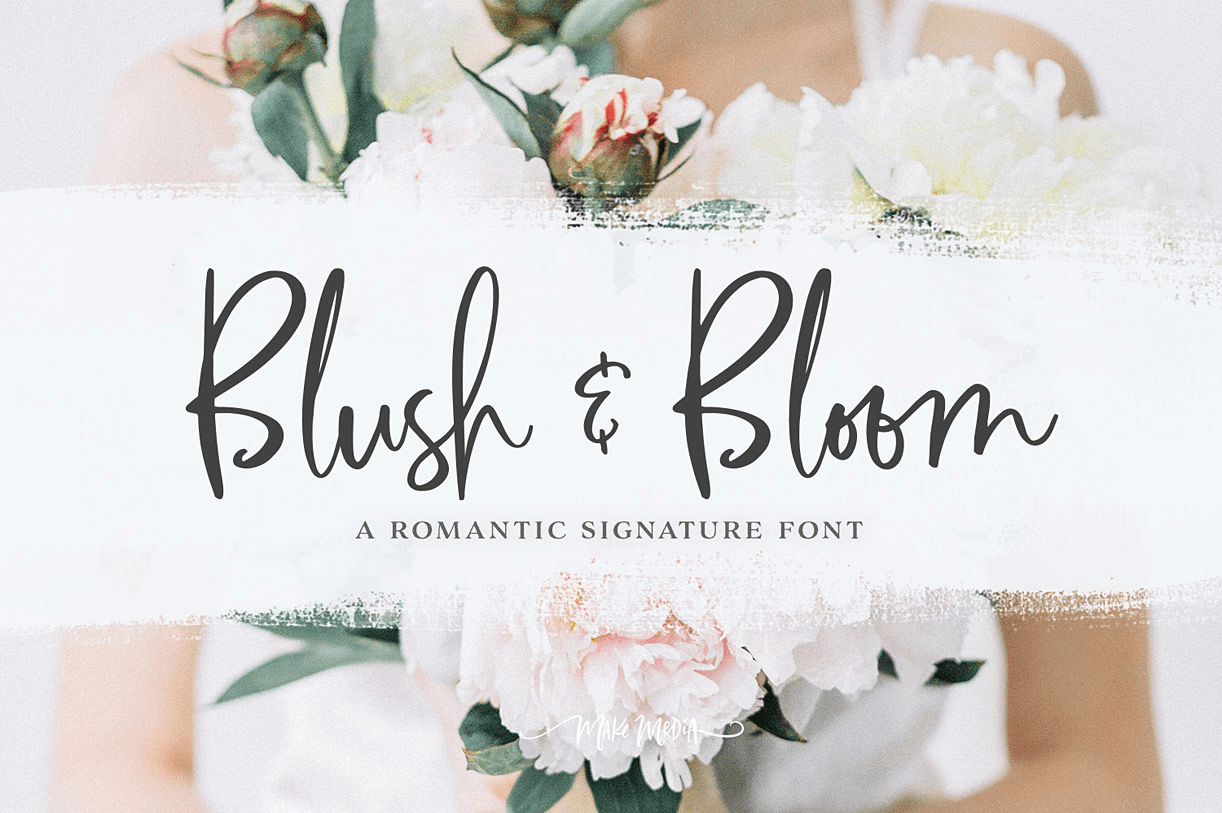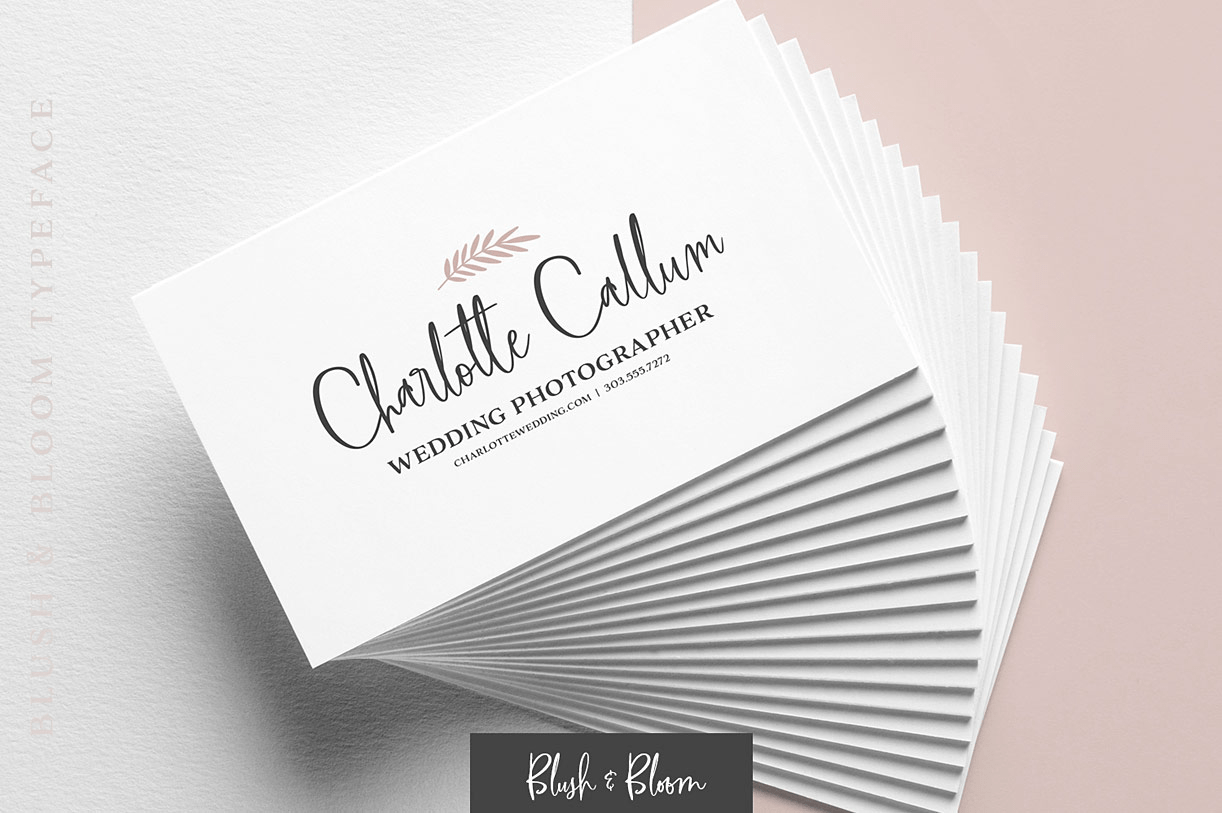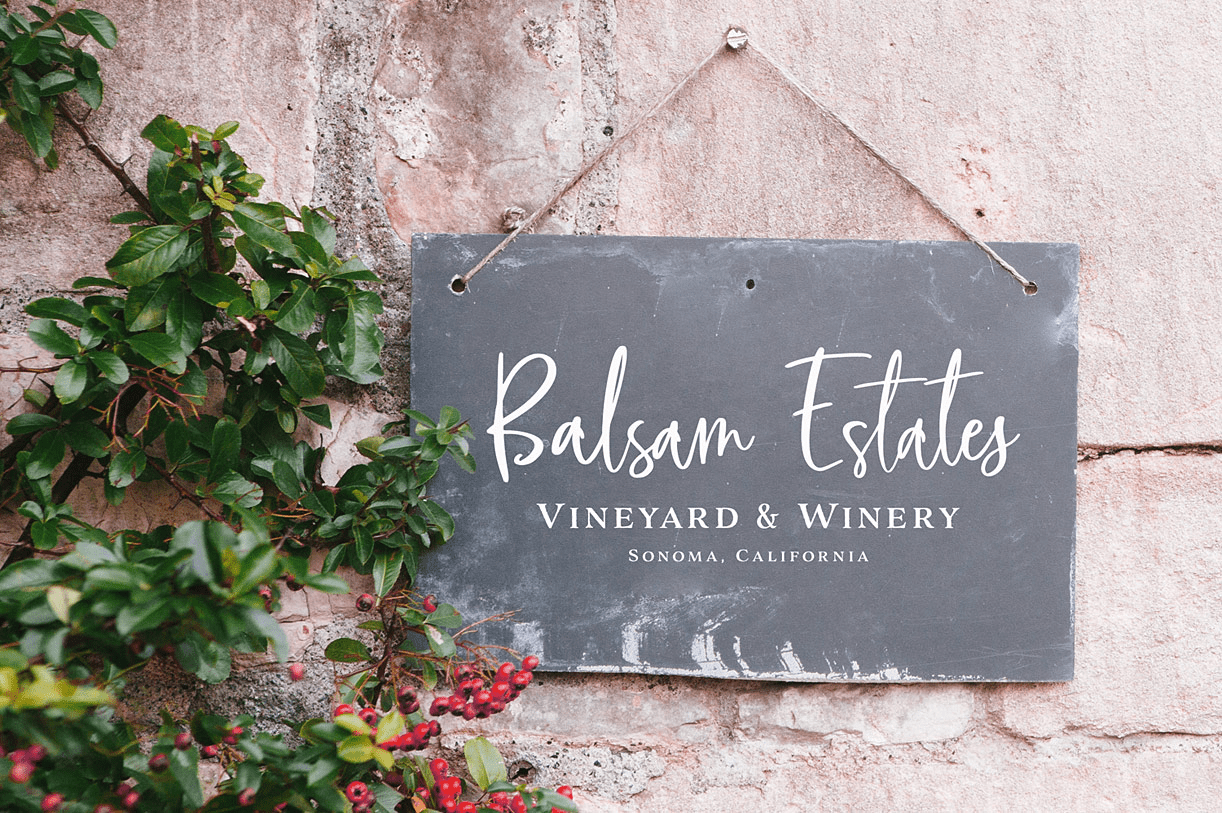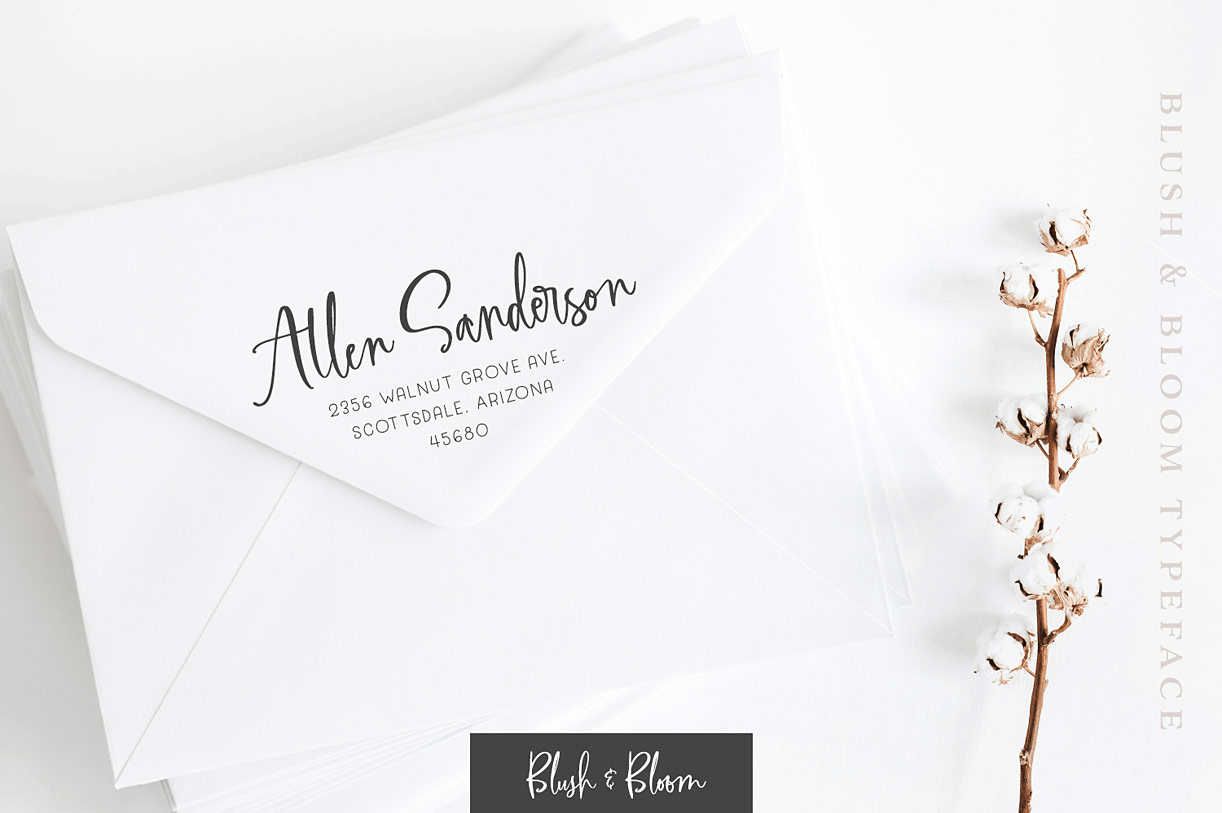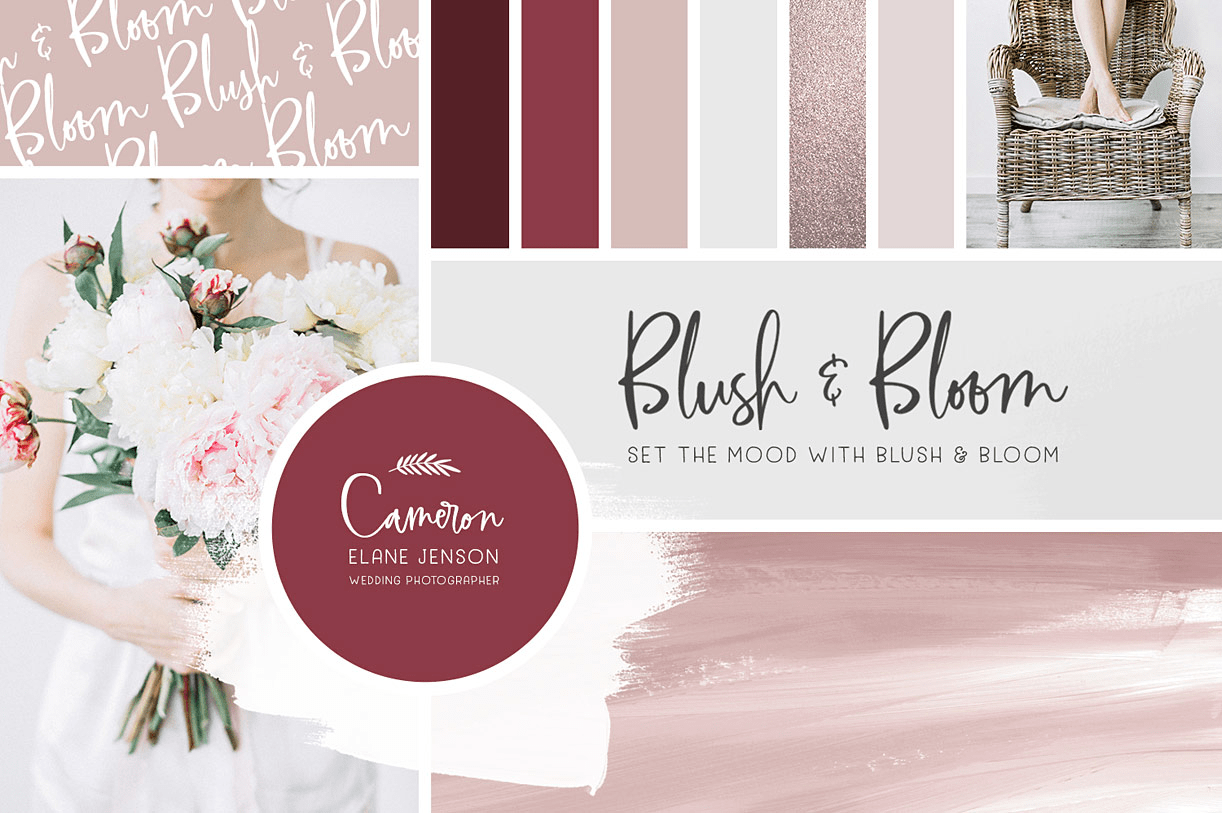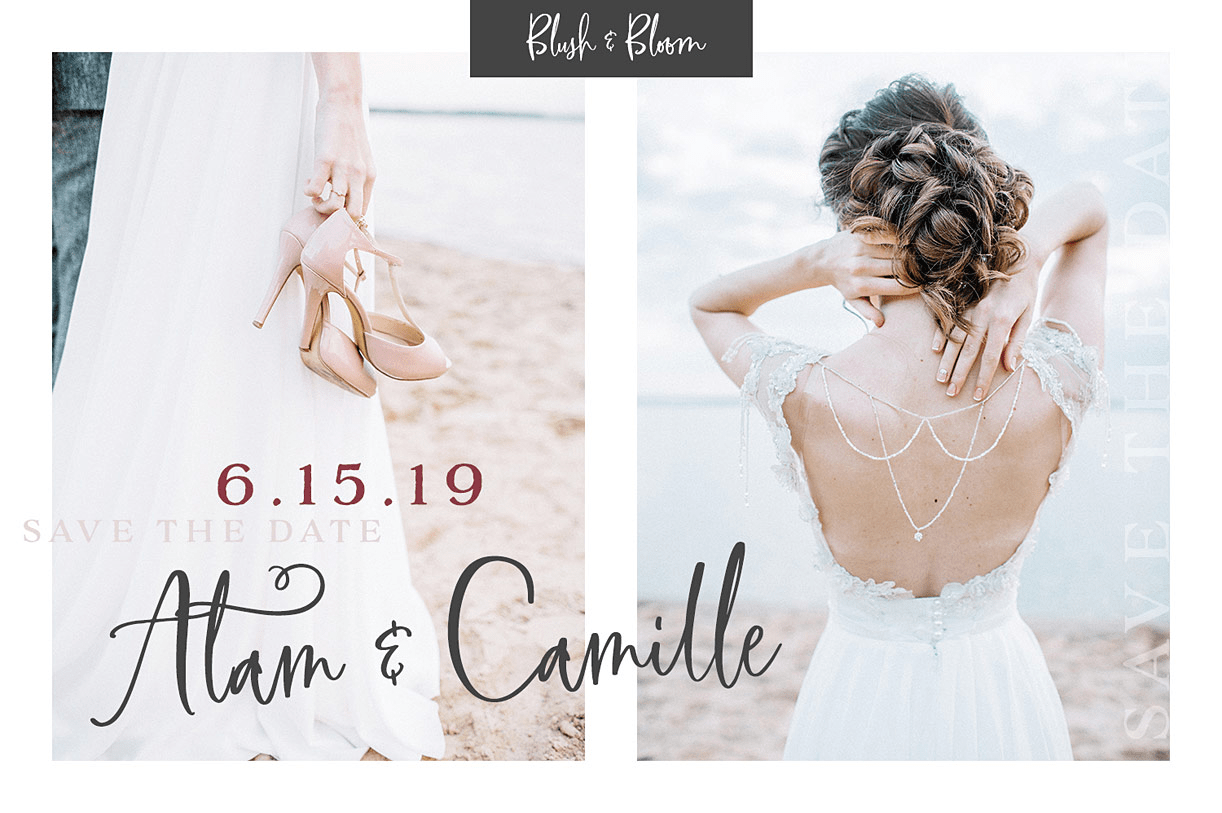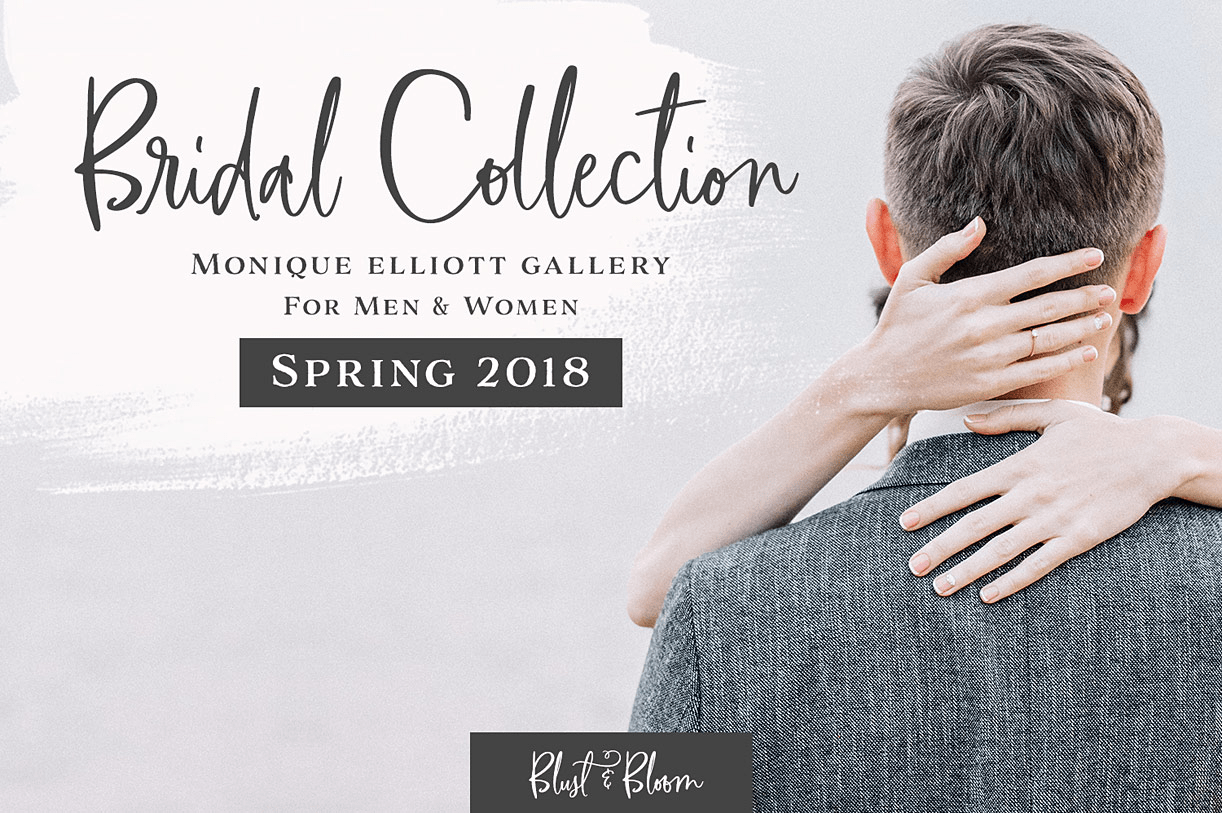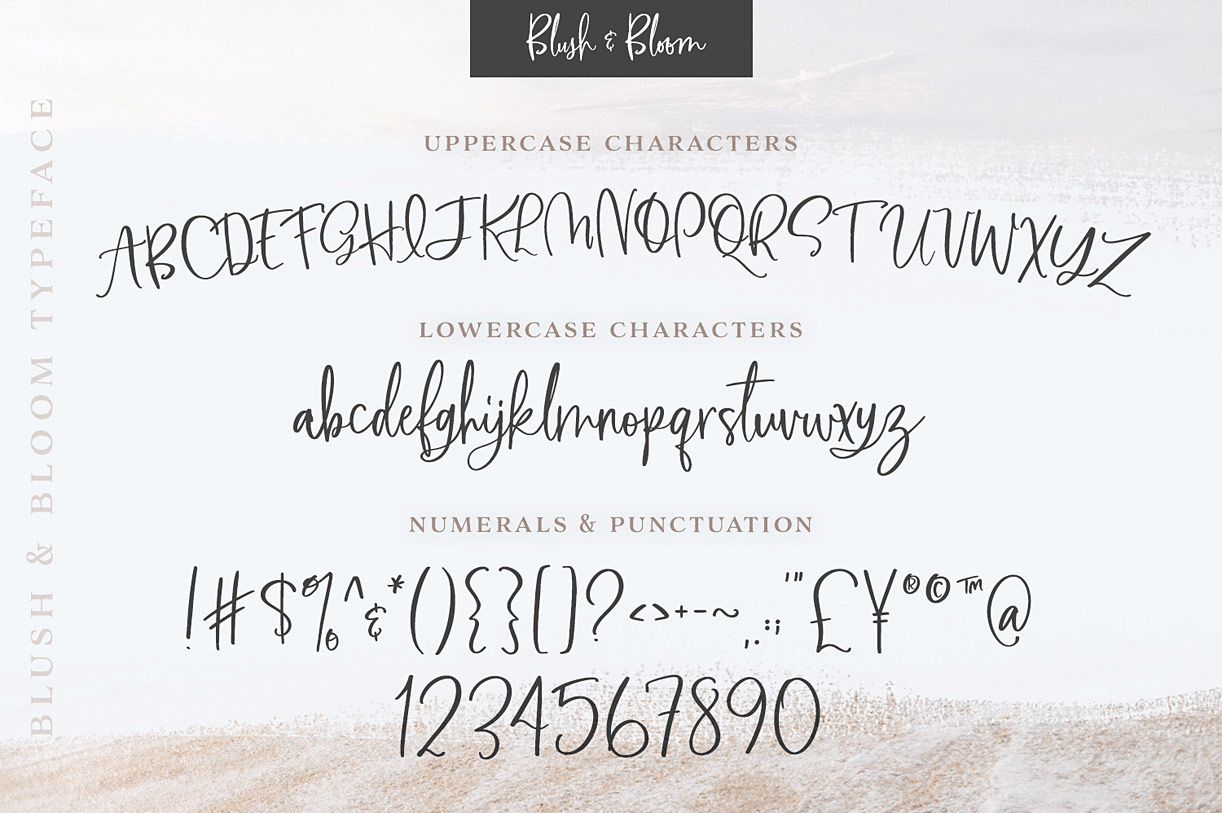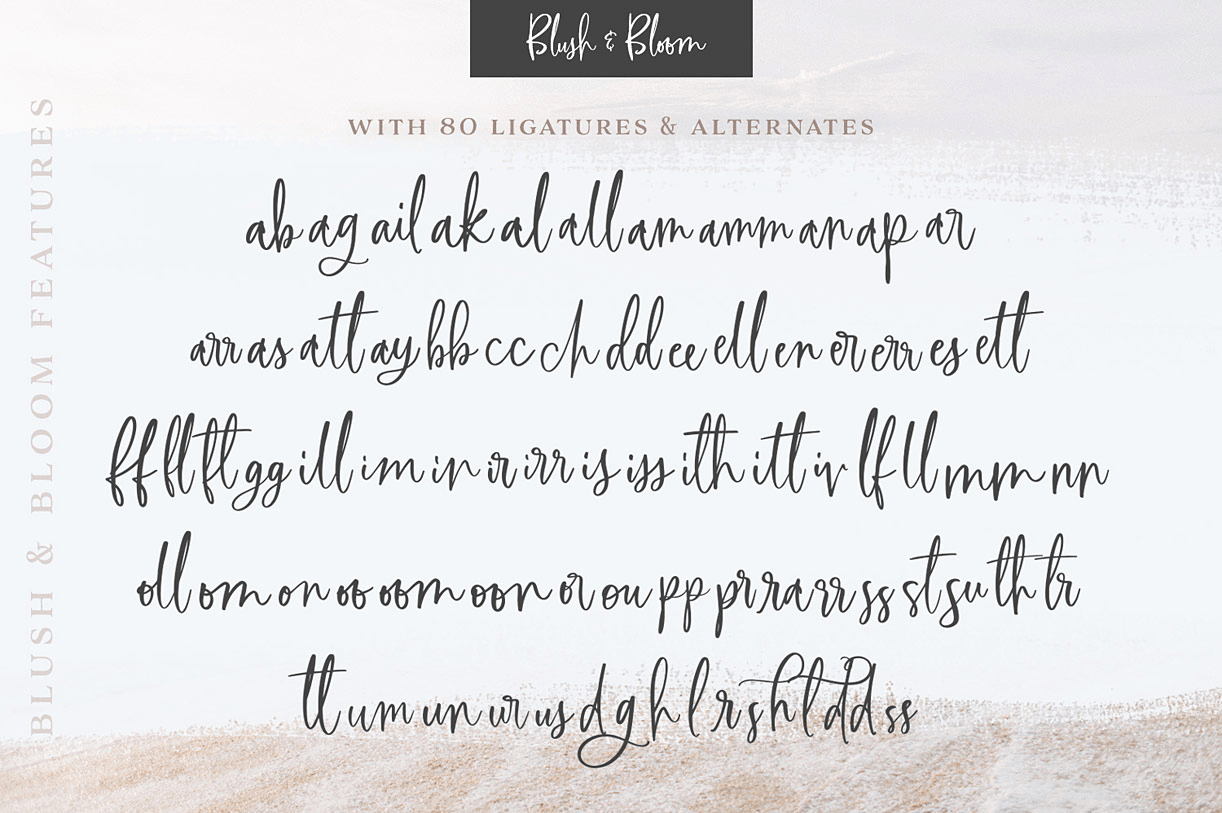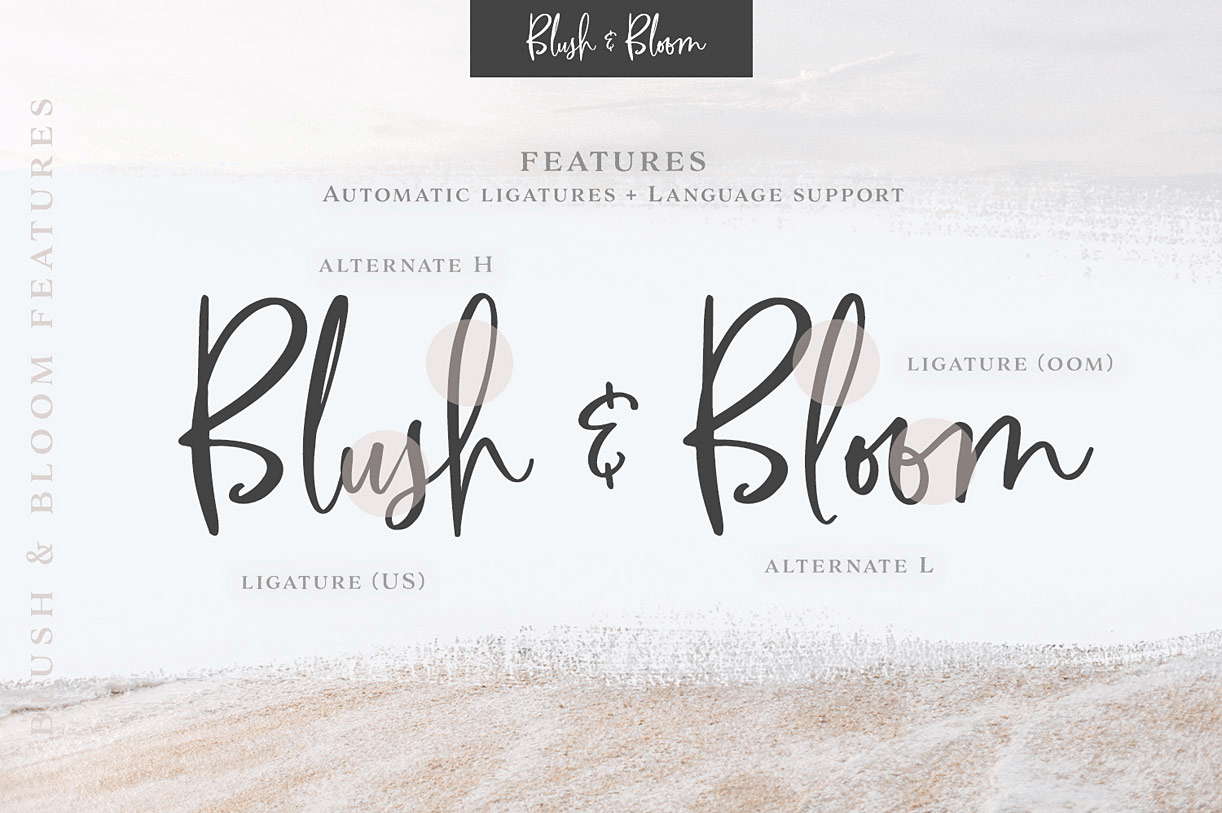
Blush & Bloom
Font Family by Callie Rian & Co
Buy NowIntroducing Blush & Bloom, a smooth, elegant typeface with 80 ligatures and alternates for an authentic hand-written feel. Blush & Bloom comes in both, Regular and Slanted, and looks gorgeous on business cards, envelopes, logos, signage, greeting cards, wedding materials, packaging and more! Pair it with a simple Sans Serif for a polished, contemporary style.